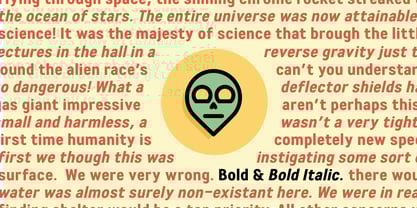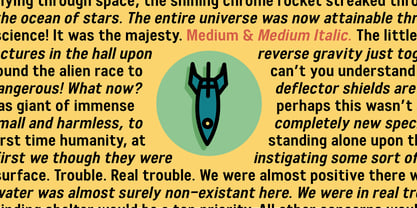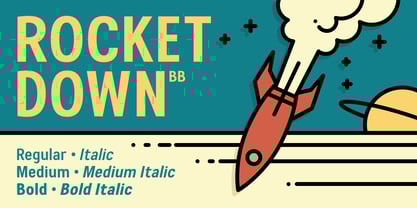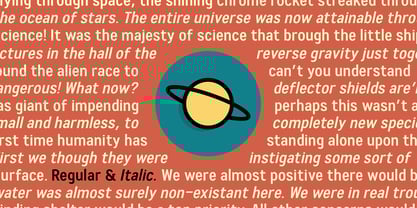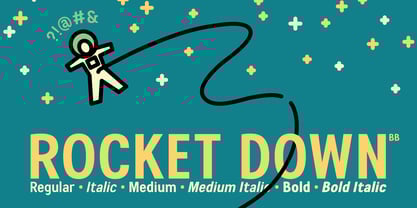
Rocket Down BB
Die Schriftfamilie Rocket Down BB wurde von Nate Piekos entworfen und von Blambot veröffentlicht. Rocket Down BB enthält 6 Stile und Familienpaketoptionen.
Rocket Down BB is a lively body copy font for those of us with an adventurous spirit! Sure, the universe may have it in for us, but we're still going to put on our jet packs, board the starship, and head out into the unknown, aren't we? Includes regular, italic, medium, medium italic, bold, and bold italic.